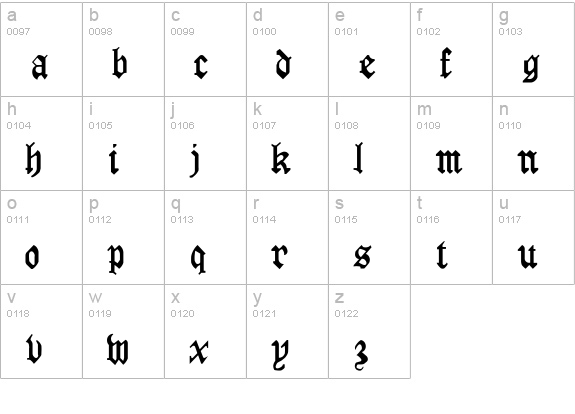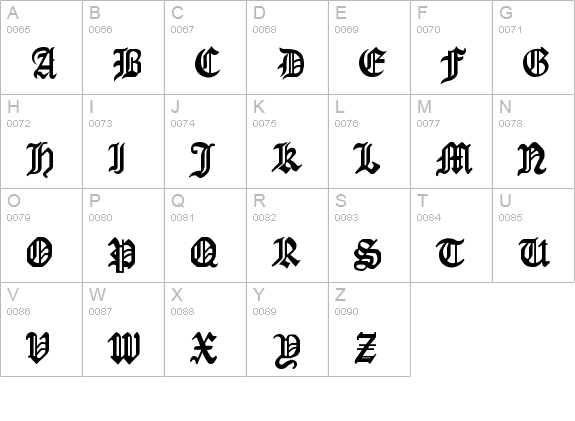
WalkiLondon Font Details
Introducing WalkiLondon, a captivating and versatile font that effortlessly combines elegance with a touch of urban flair. With its sleek lines and bold presence, this font is perfect for creating eye-catching designs that demand attention. WalkiLondon is a true gem in the world of typography, offering a unique blend of sophistication and modernity. Its carefully crafted letterforms exude confidence, making it the ideal choice for branding projects, logo designs, and editorial layouts. But what sets WalkiLondon apart from the rest is its incredible affordability. Yes, you read that right – this remarkable font is available for free! Thanks to FontsMarket.com, you can easily download WalkiLondon and enjoy its exceptional quality without breaking the bank. Whether you're a professional designer looking to add a touch of finesse to your latest project or a casual enthusiast in search of a stunning font for personal use, WalkiLondon has got you covered. Its extensive character set includes uppercase and lowercase letters, numerals, punctuation marks, and even special glyphs, ensuring that your creativity knows no bounds. So why wait? Unleash your artistic prowess and elevate your designs with WalkiLondon, the font that seamlessly blends sophistication and modernity. Remember, this font is freely available for download at FontsMarket.com – the perfect opportunity to enhance your typography collection without spending a dime. Don't miss out on this exceptional offer and start creating captivating visuals today!